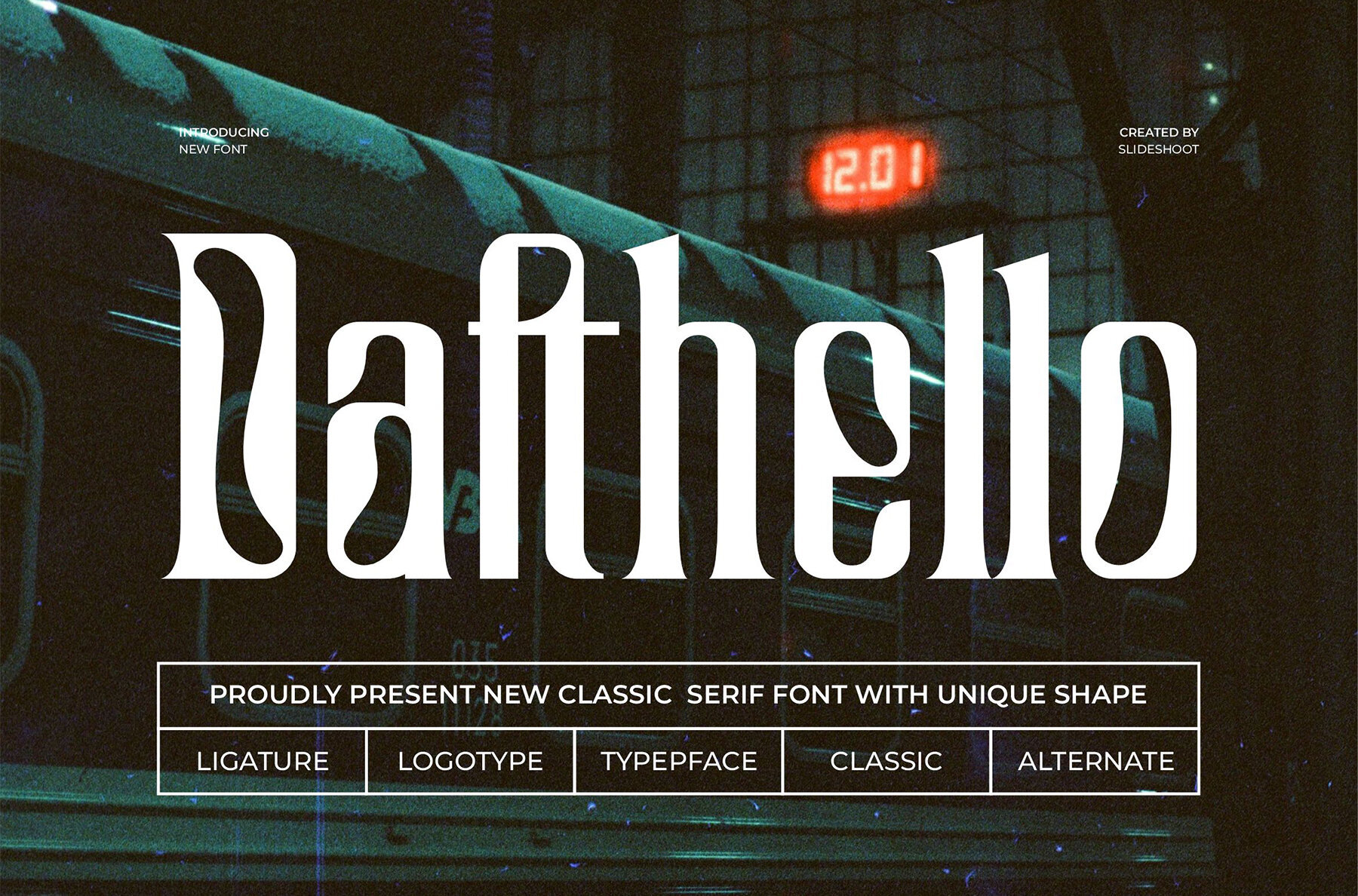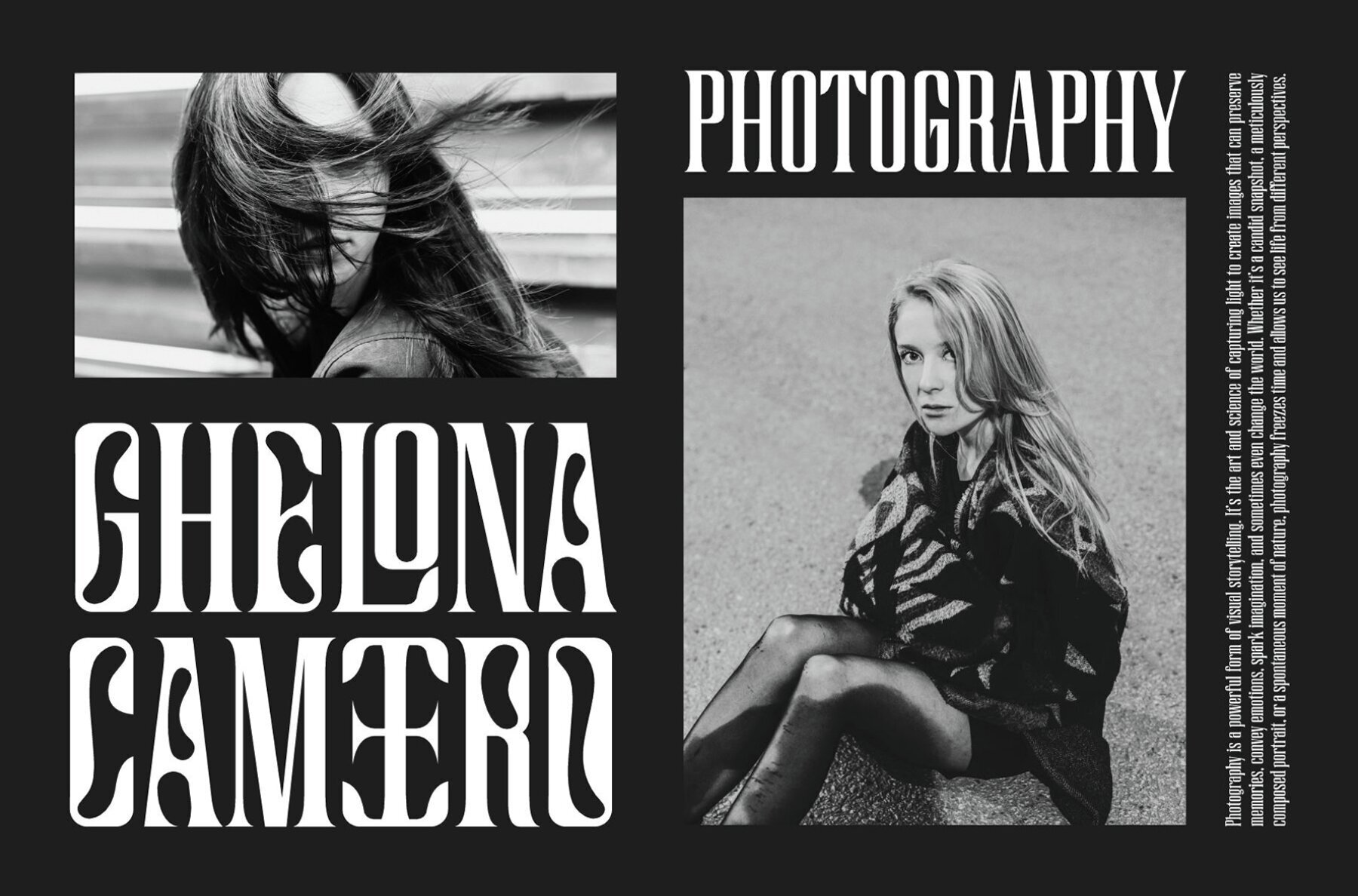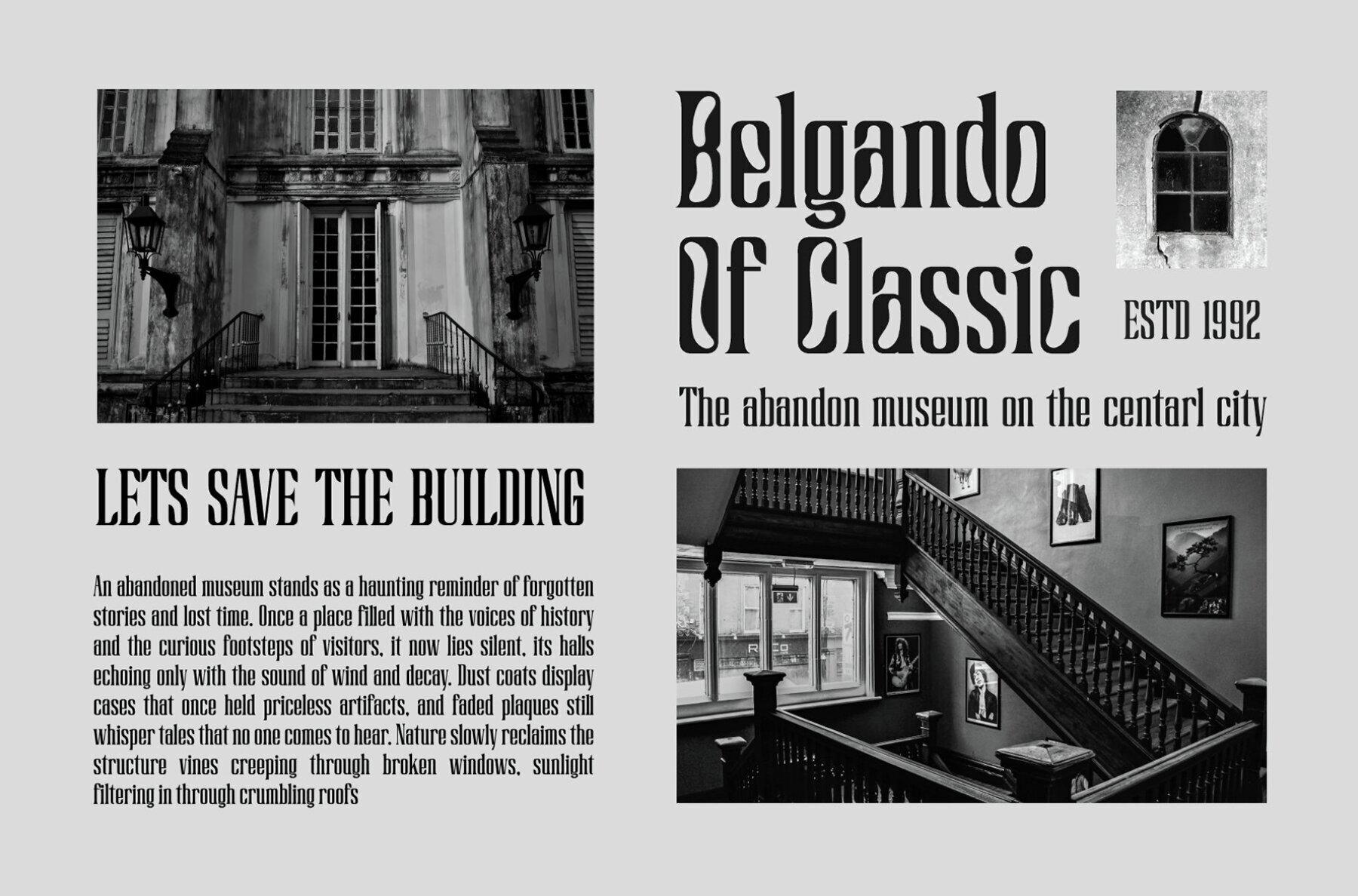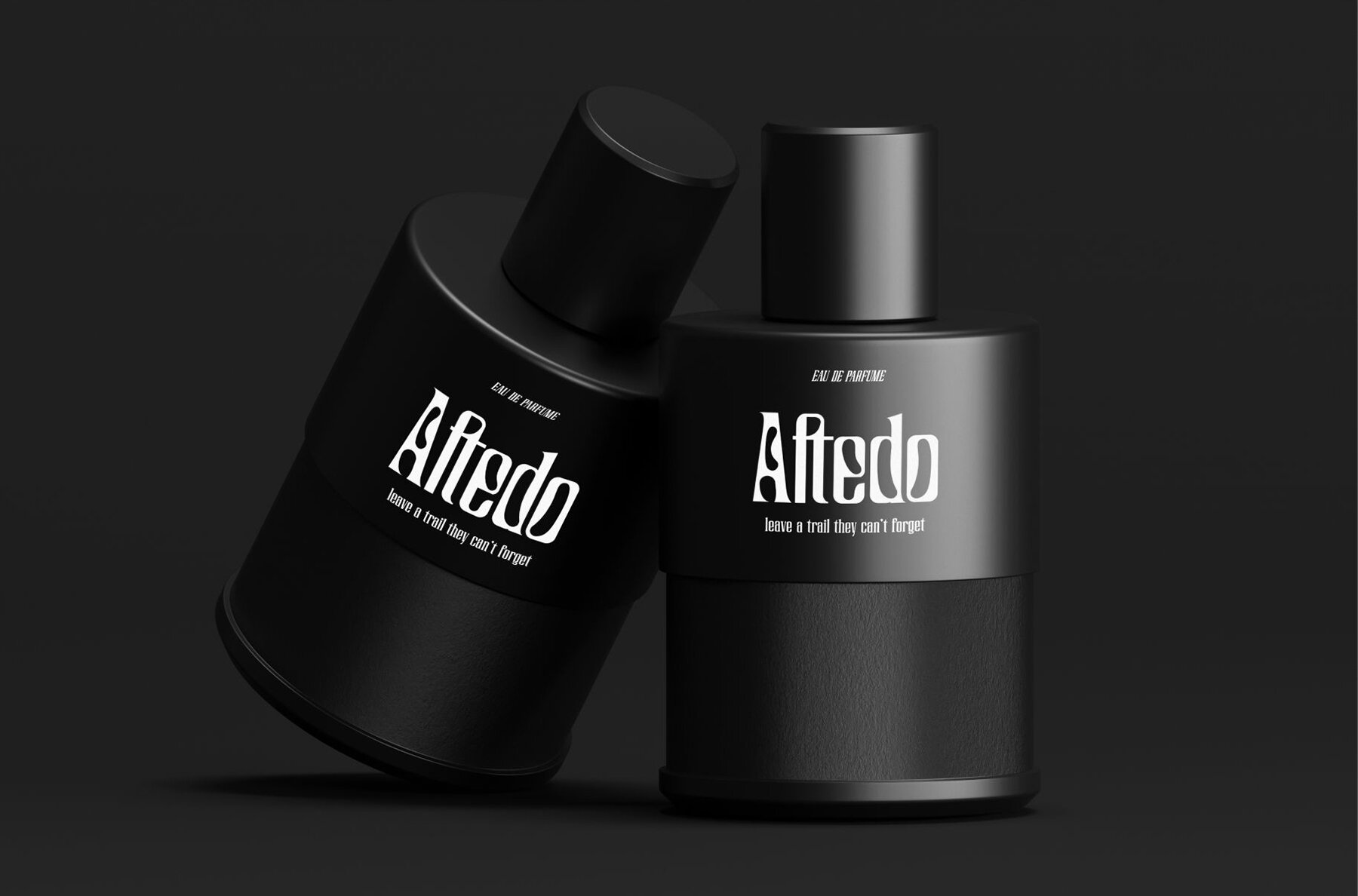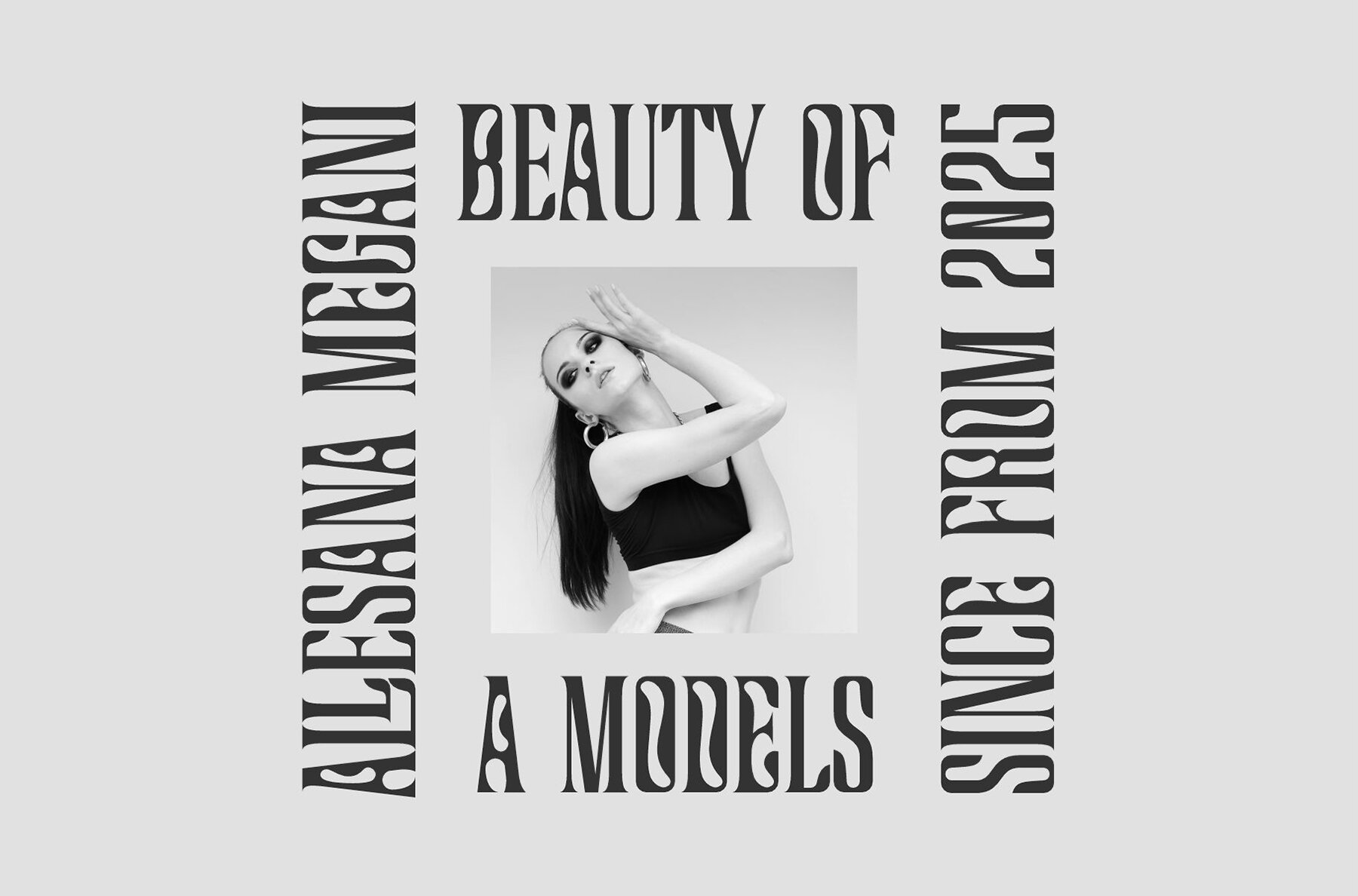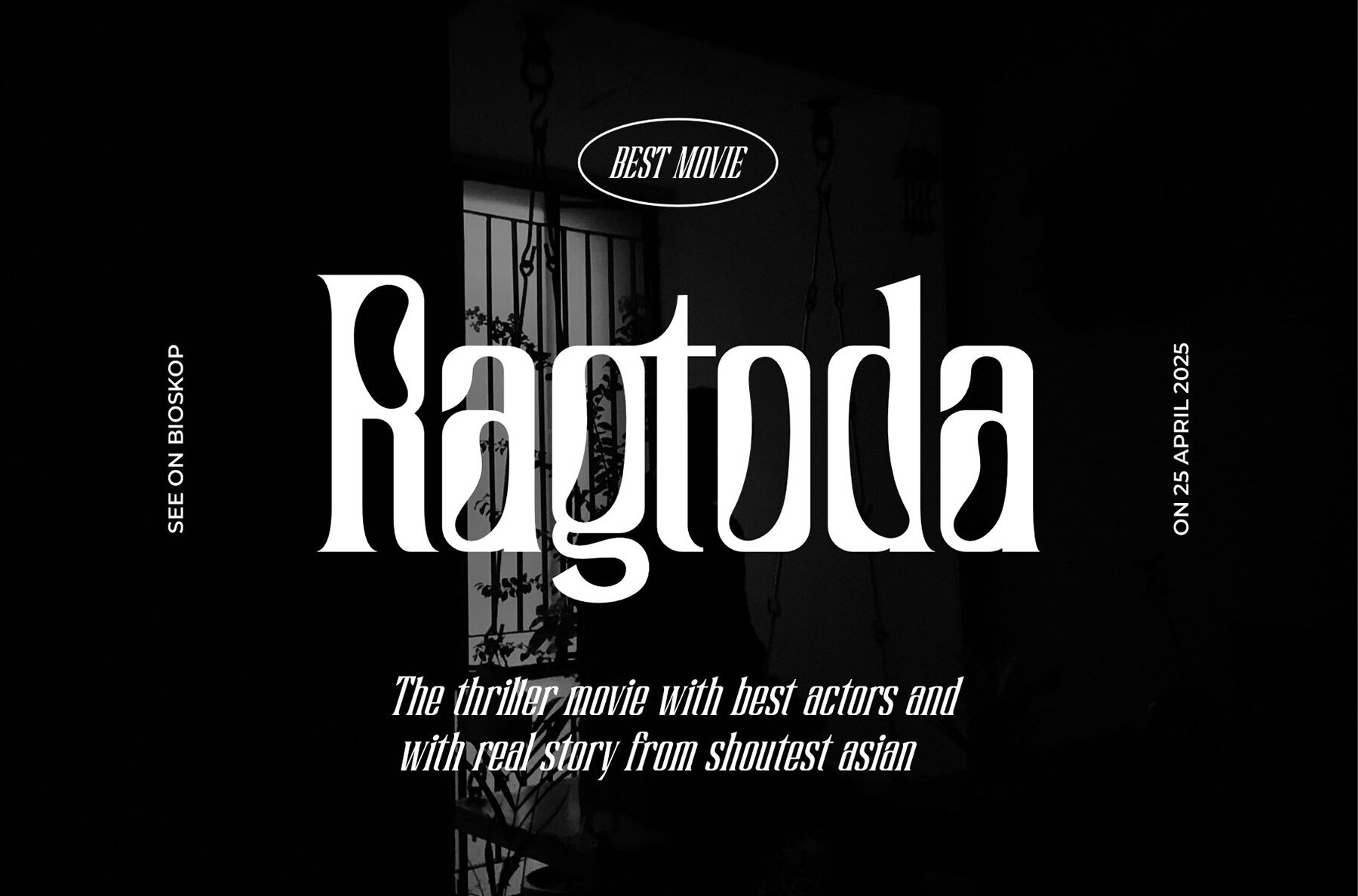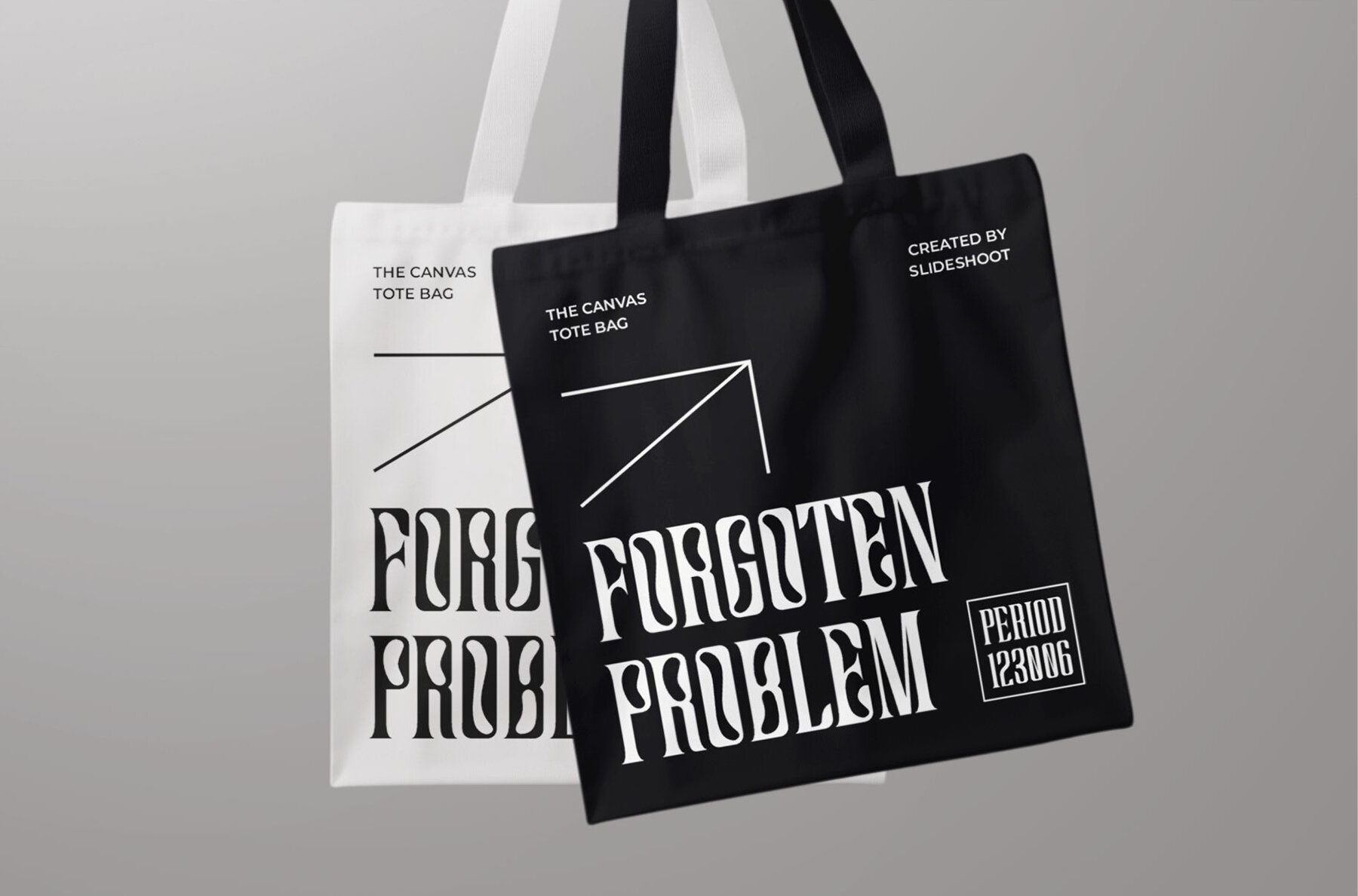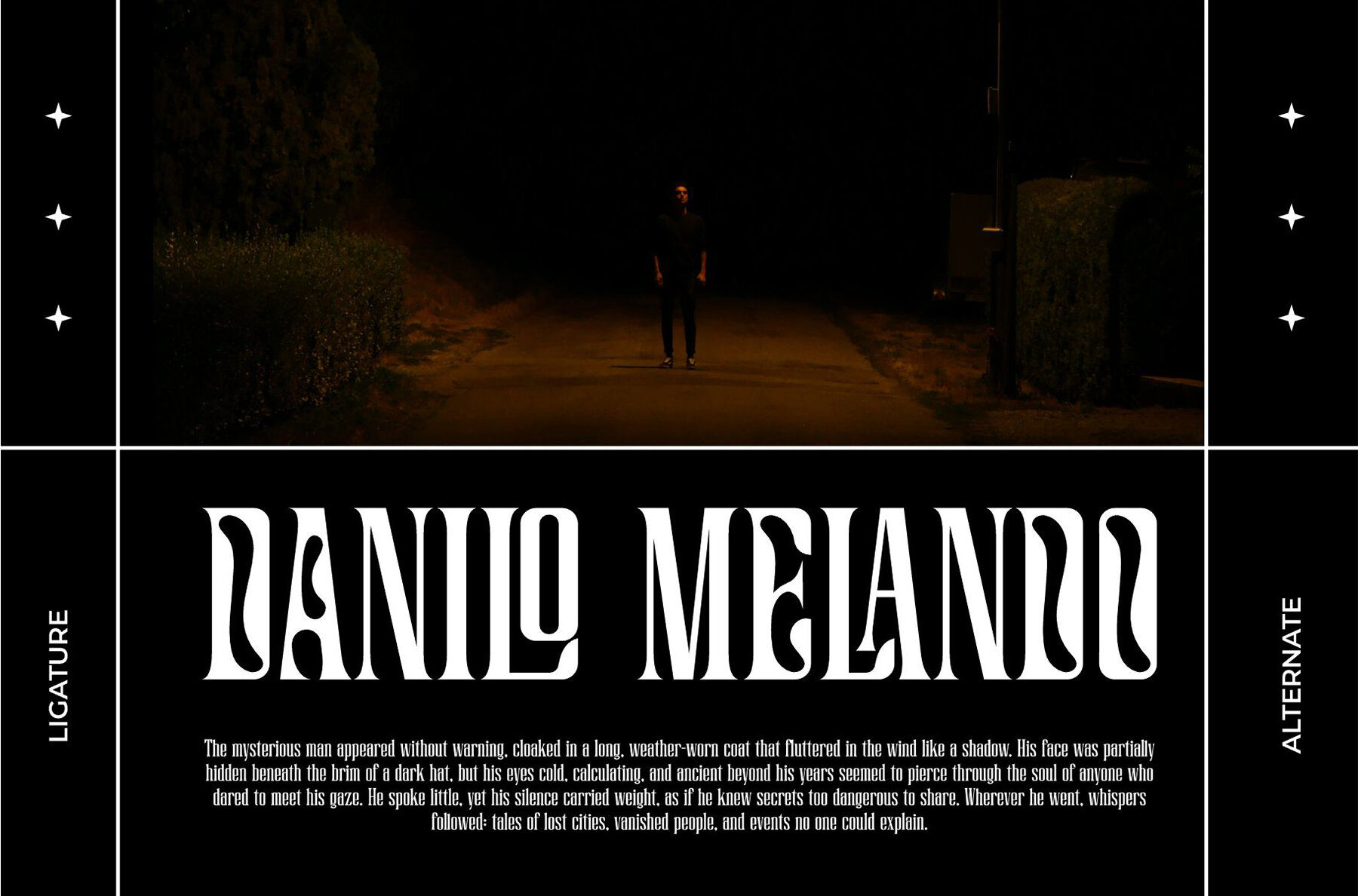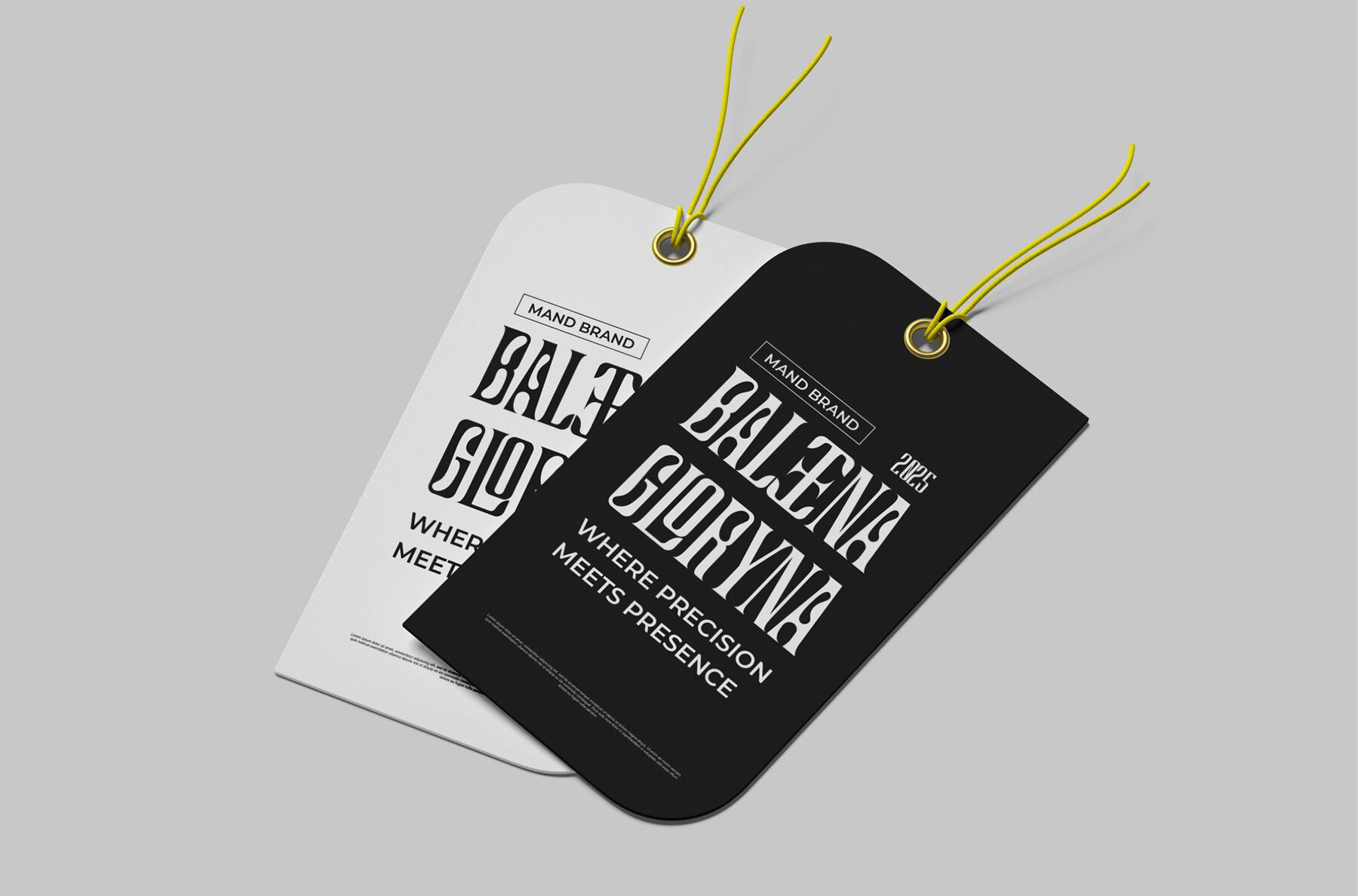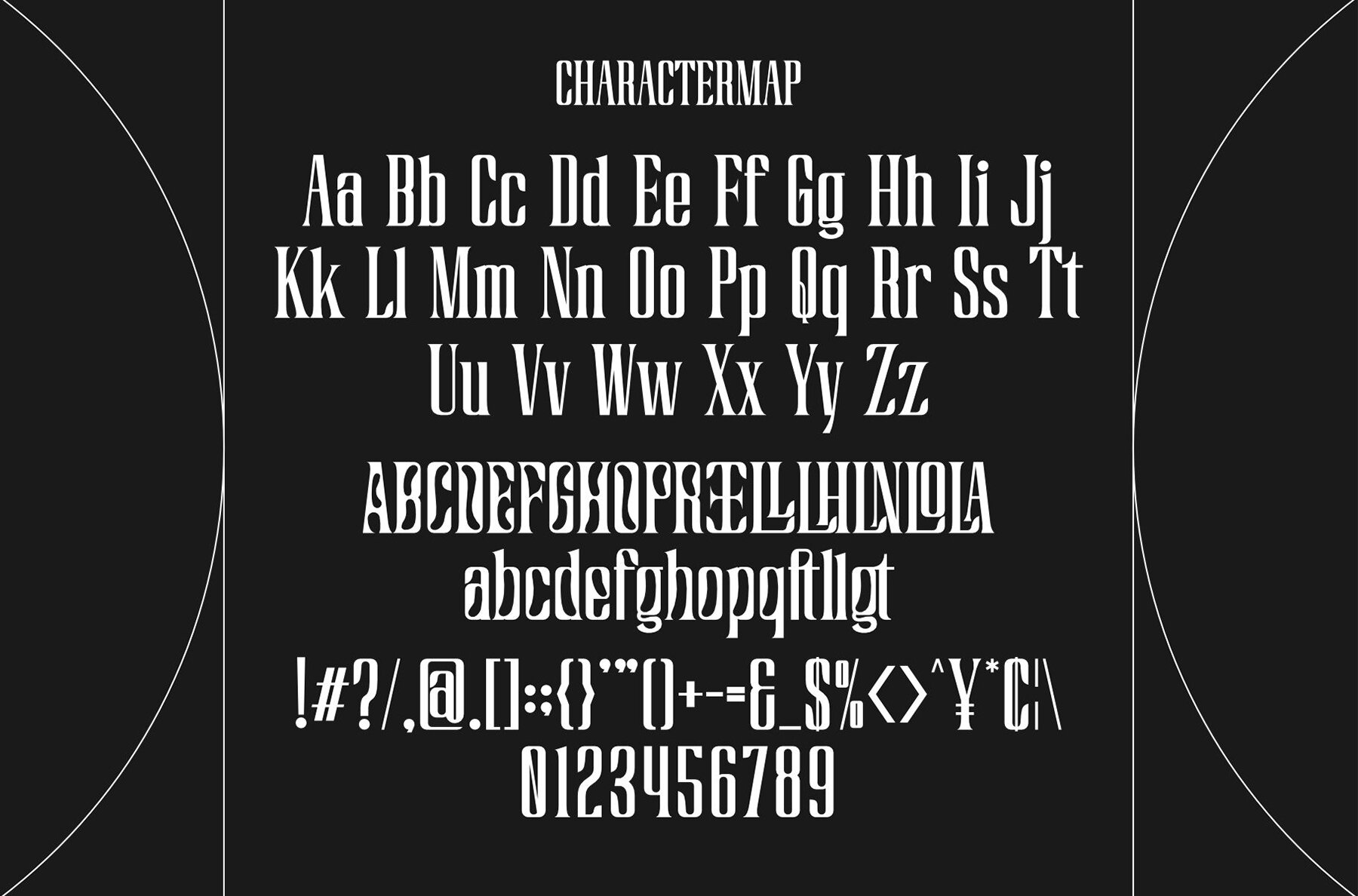
Dafthello Font
Dafthello
Dafthello is not just another serif font; it embodies elegance and style. With its distinctive character, it is an ideal choice for designers looking to enhance their invitation card designs, company logos, movie titles, business cards, and various other projects.Dafthello: A Classic Serif Font with Unique Character